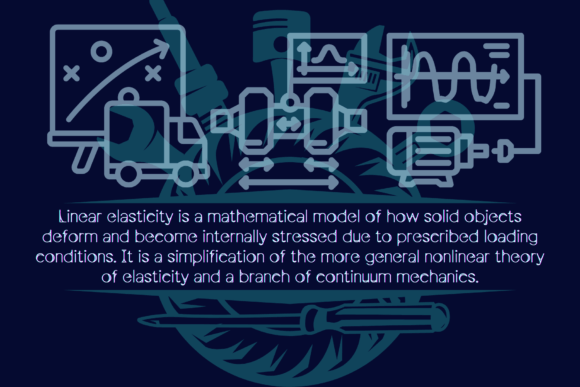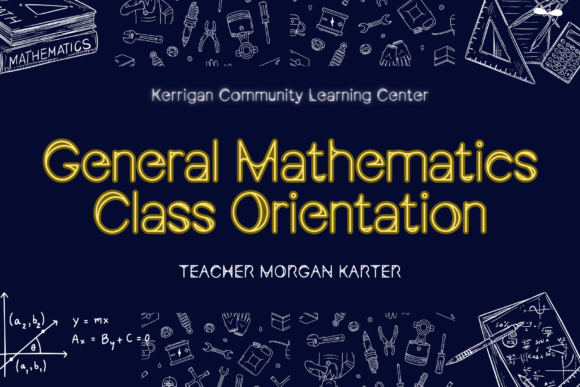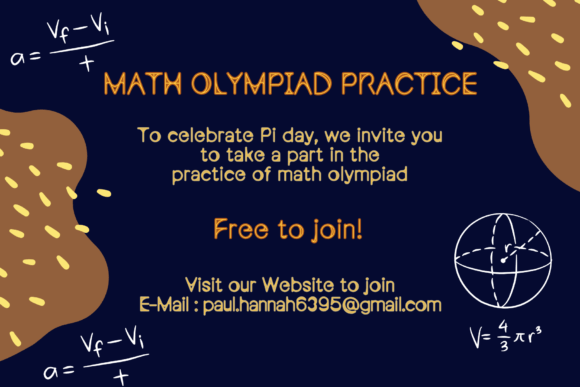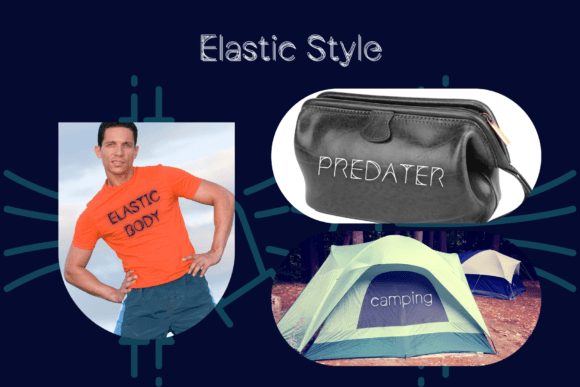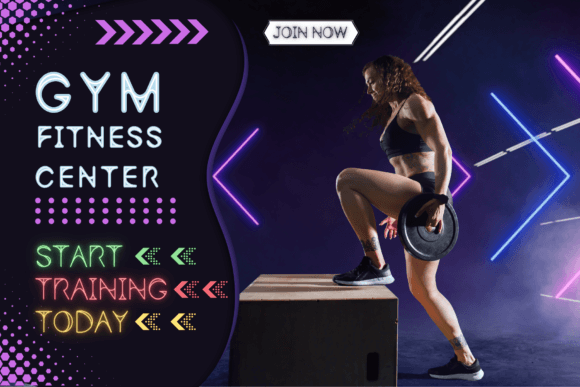
The Elastic Line Font: A Game-Changer for Creative Projects
What is Elastic Line Font?
Elastic Line is a sleek display font that draws inspiration from the flexibility of lines that come together to form letters. This unique font is full of flexibility and exudes a lively vibe. Designed with ease of use in mind, Elastic Line is perfect for creative works that require fluidity and liveliness.
- ✨ Unique and modern design that adds a touch of sophistication to any project
- ✅ Highly versatile and adaptable to various design contexts
- 💡 Excellent for headlines, titles, and short paragraphs
- 🎉 Supports OpenType features, glyphs, and stylistic alternates
- 🤔 May not be the best choice for body text or lengthy paragraphs due to its display font nature
- ⚠️ Some users might find the font’s flexibility a bit too much, making it challenging to achieve consistency
The Designer Inspiration Behind Elastic Line
According to its creators, Elastic Line was inspired by the flexibility and dynamism of modern design. The font’s unique design is meant to evoke the feeling of lines coming together to form letters, creating a sense of movement and energy.
Q: What makes Elastic Line font so special?
A: Elastic Line’s unique design and flexibility make it perfect for creative projects that require a lively and fluid feel.
Q: Can I use Elastic Line for body text?
A: While Elastic Line is a display font, it’s not ideal for lengthy paragraphs. However, it can be used for short paragraphs or captions.
Q: Does Elastic Line support OpenType features?
A: Yes, Elastic Line supports OpenType features, glyphs, and stylistic alternates, making it a versatile font for designers.